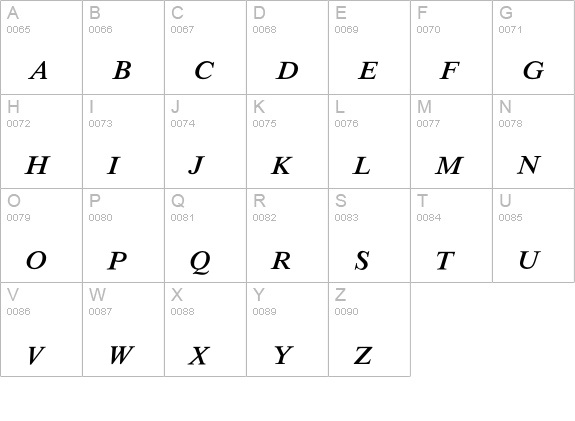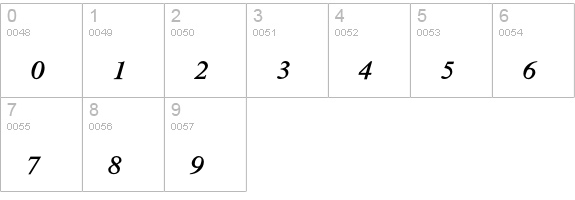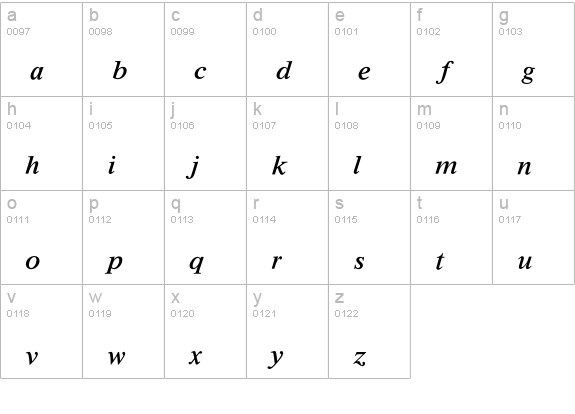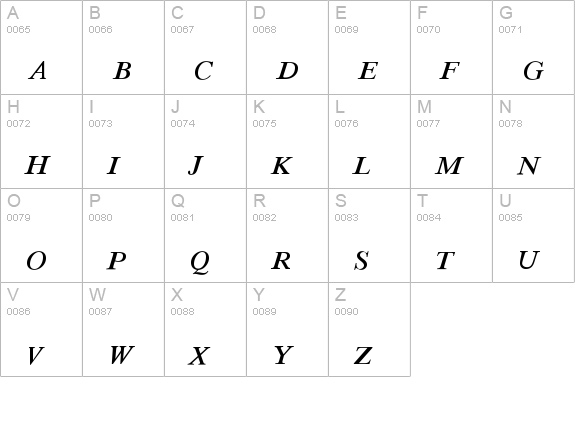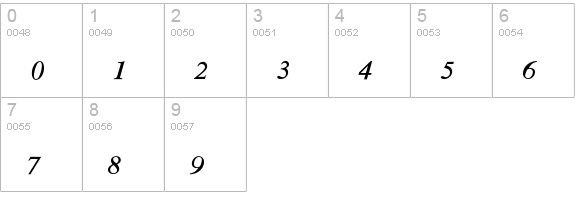
Introducing MathTechnicalP16, a remarkable font designed specifically for mathematical and technical applications. This font boasts a clean and crisp design, ensuring optimal legibility even when working with complex equations and symbols. With its sleek and modern aesthetic, MathTechnicalP16 adds a touch of professionalism to any project. But what sets MathTechnicalP16 apart is its accessibility. This font is freely available to download at FontsMarket.com, making it an invaluable resource for students, educators, and professionals who require a reliable and visually appealing font for their mathematical and technical endeavors. Whether you're creating mathematical equations, scientific reports, or technical diagrams, MathTechnicalP16 has got you covered. The attention to detail in MathTechnicalP16 is evident in its carefully crafted characters and precise spacing. Each symbol and glyph has been meticulously designed to ensure clarity and consistency, allowing for seamless integration within any mathematical or technical context. This font's versatility shines through as it effortlessly adapts to diverse mediums, including print, digital, and web-based applications. MathTechnicalP16's generous range of weights and styles provides flexibility and allows for customization, enabling users to find the perfect balance between elegance and functionality. Additionally, this font's extensive character set includes a wide range of mathematical symbols, ensuring compatibility with various mathematical notations and equations. With MathTechnicalP16, the possibilities are endless. From academic papers and textbooks to technical manuals and research presentations, this font elevates the visual appeal of any mathematical and technical content. Its ease of use and availability make it an indispensable tool for anyone seeking to enhance their mathematical and technical communication. In conclusion, MathTechnicalP16 is a free font that combines functionality, versatility, and style. Its availability at FontsMarket.com ensures that users can easily access and integrate this font into their projects. So why settle for ordinary when you can elevate your mathematical and technical work with MathTechnicalP16? Download this exceptional font today and experience the difference it makes in your next venture.